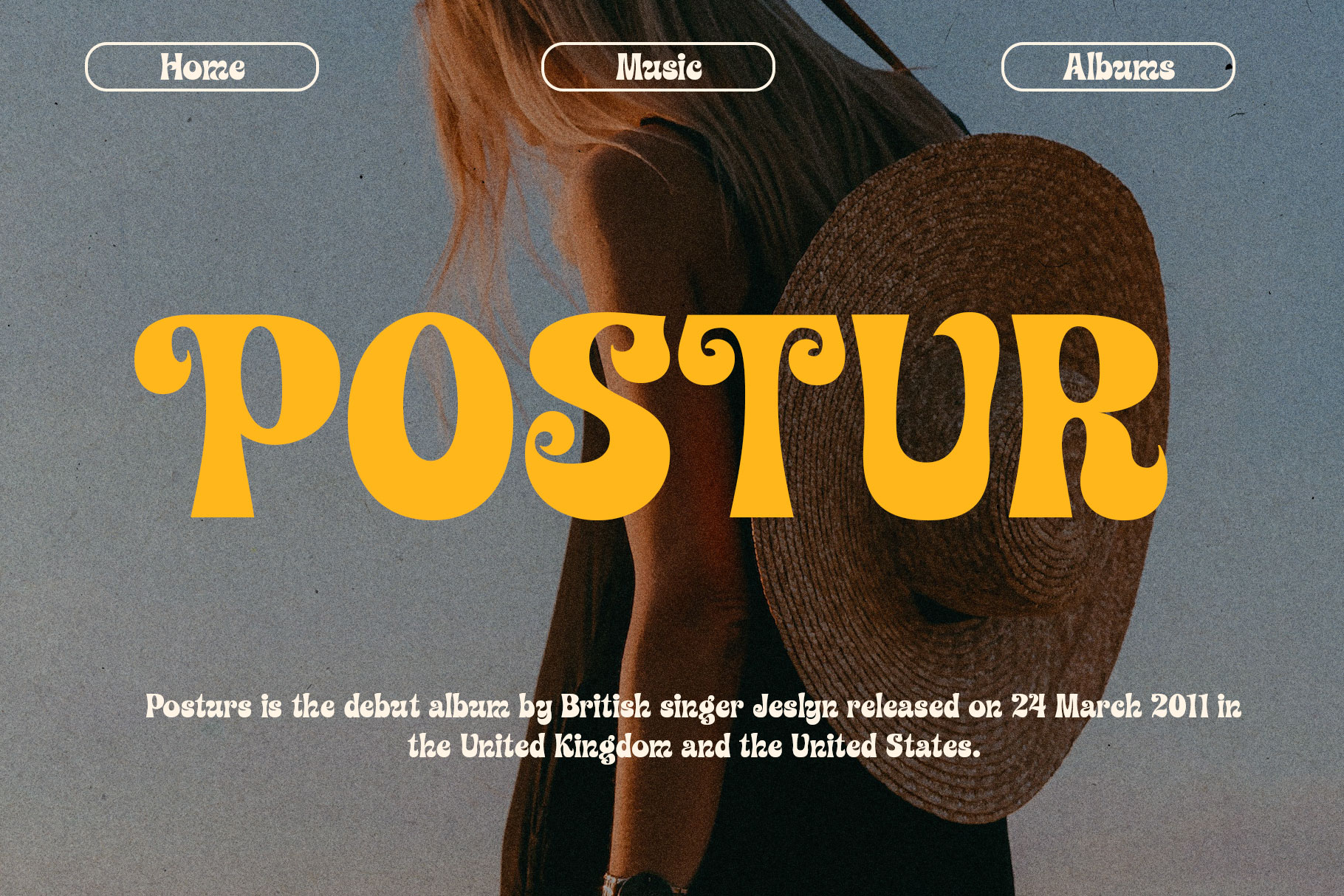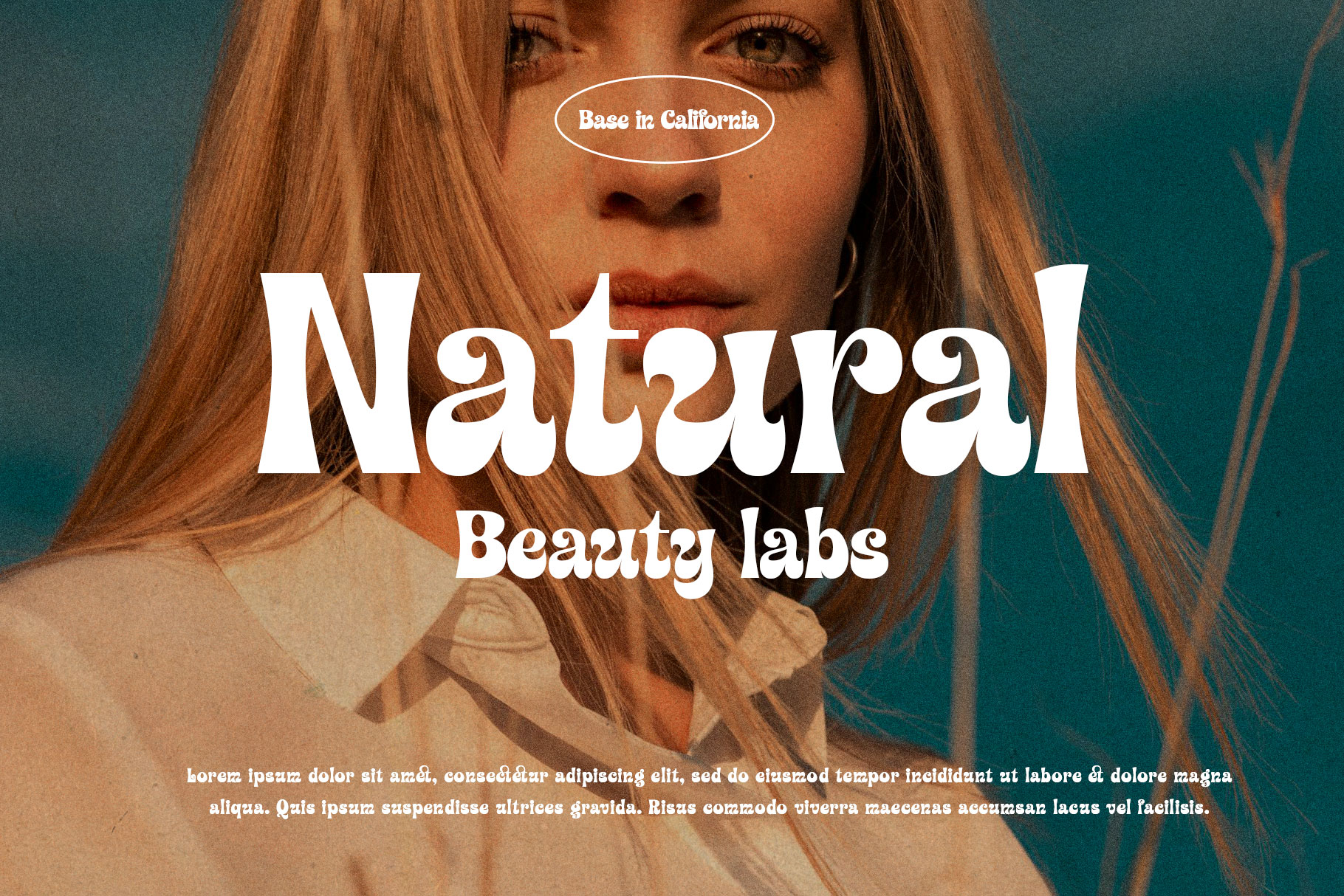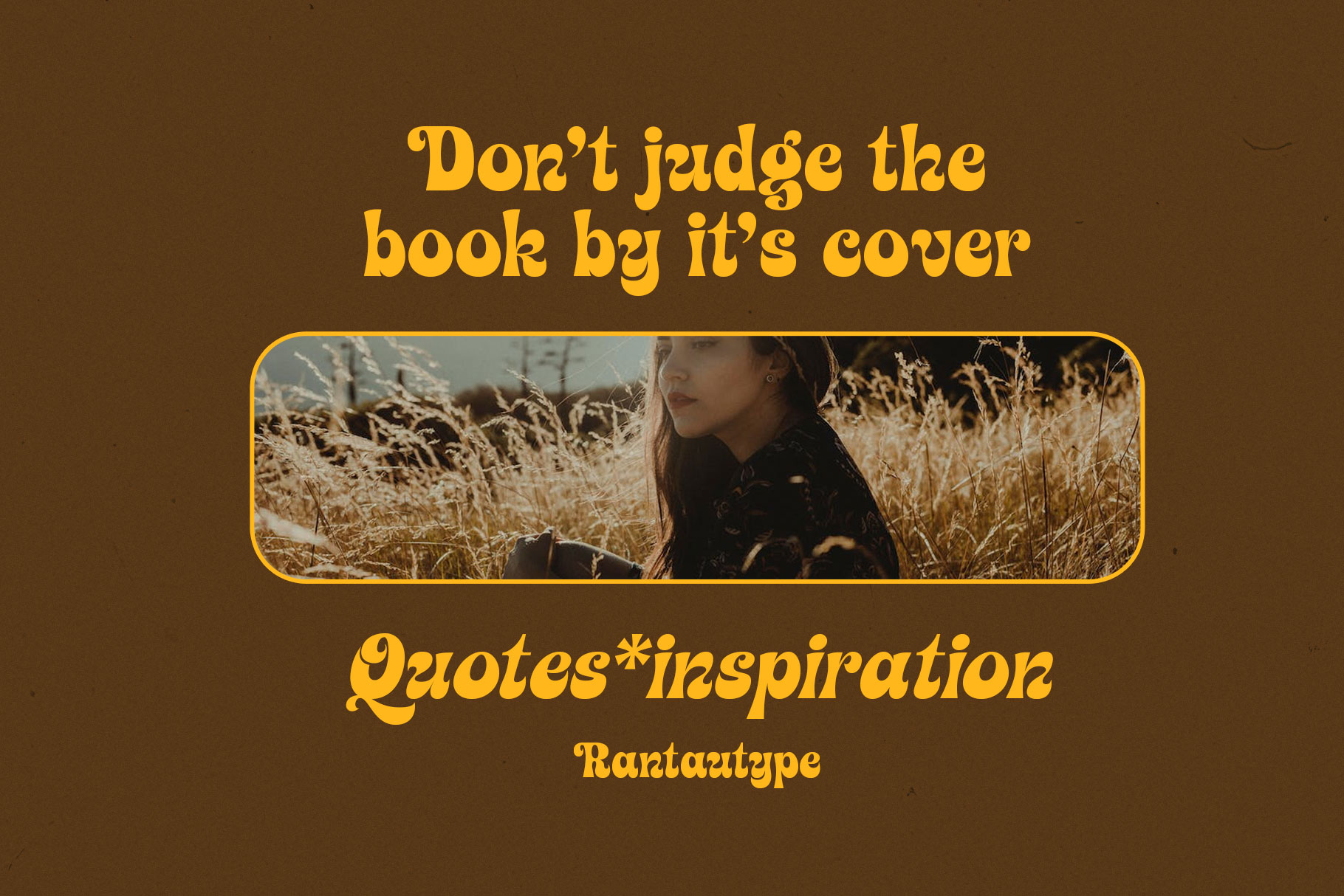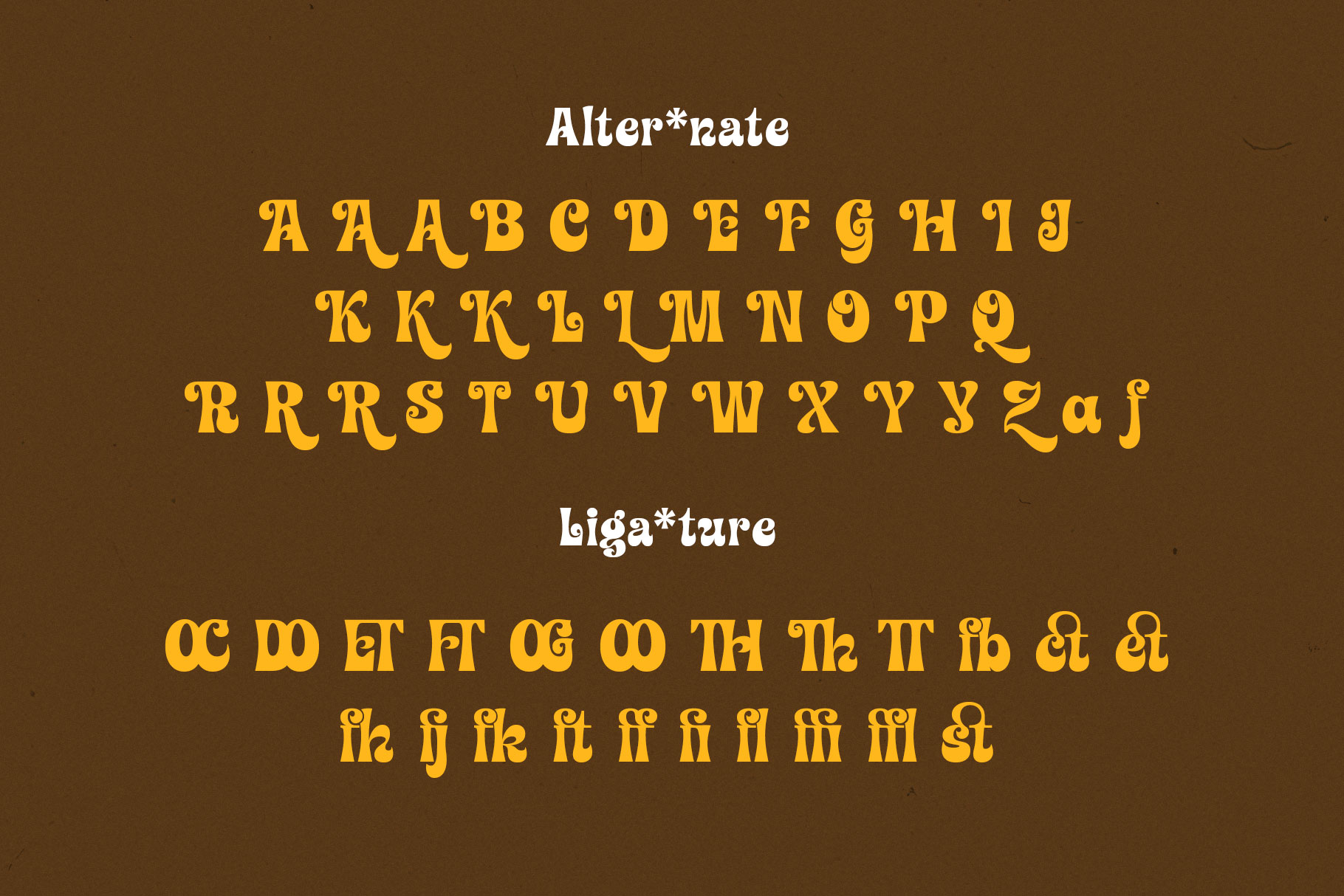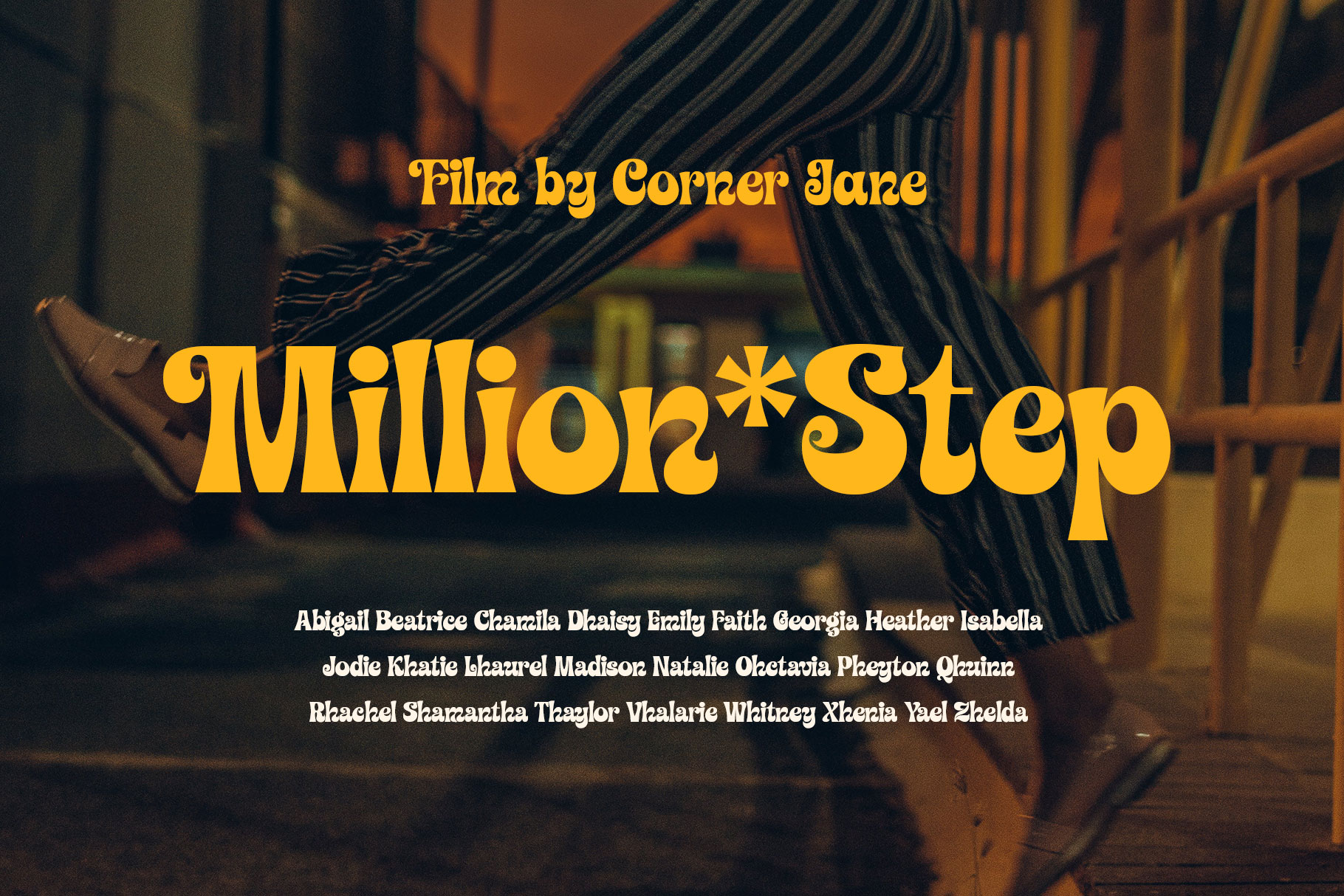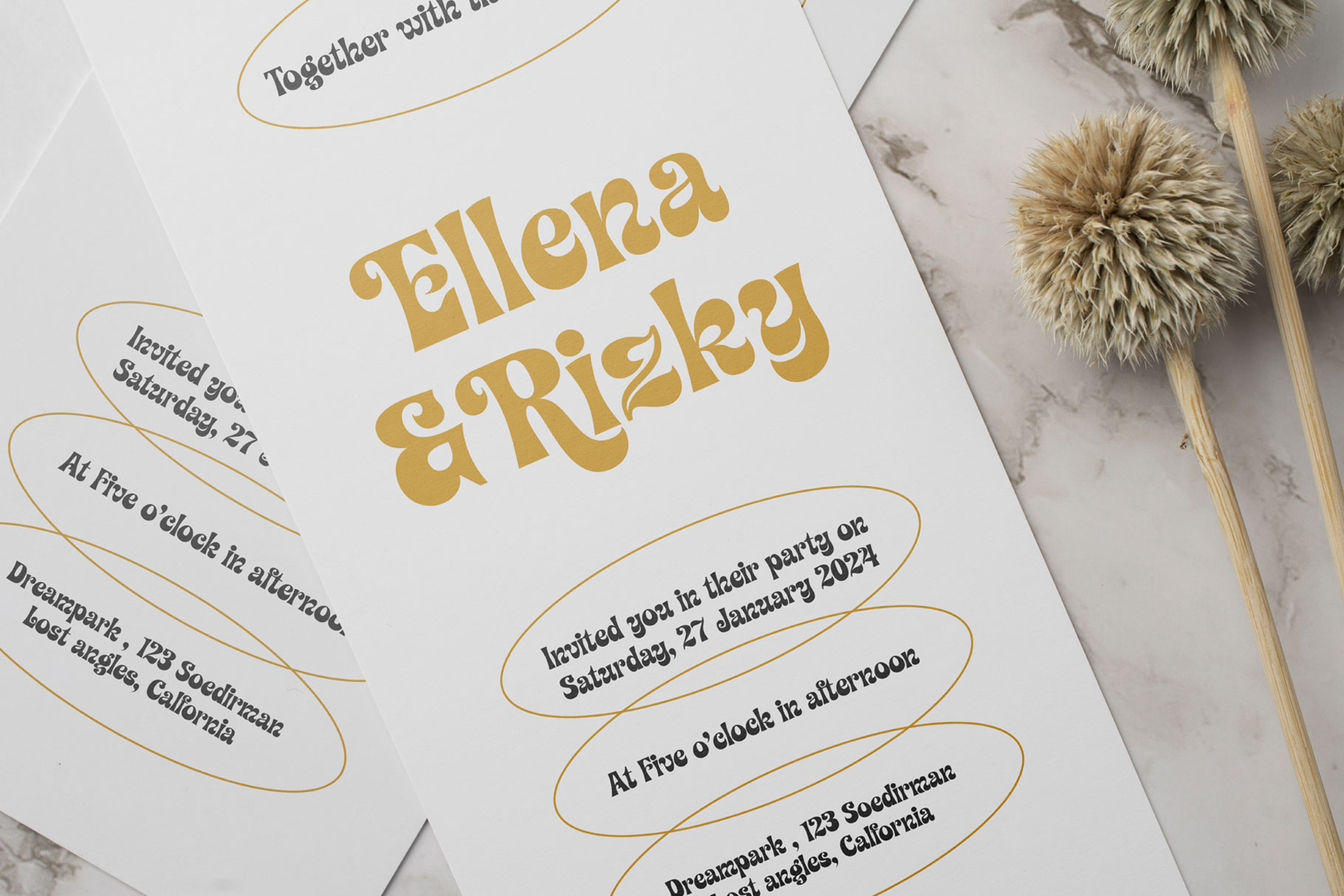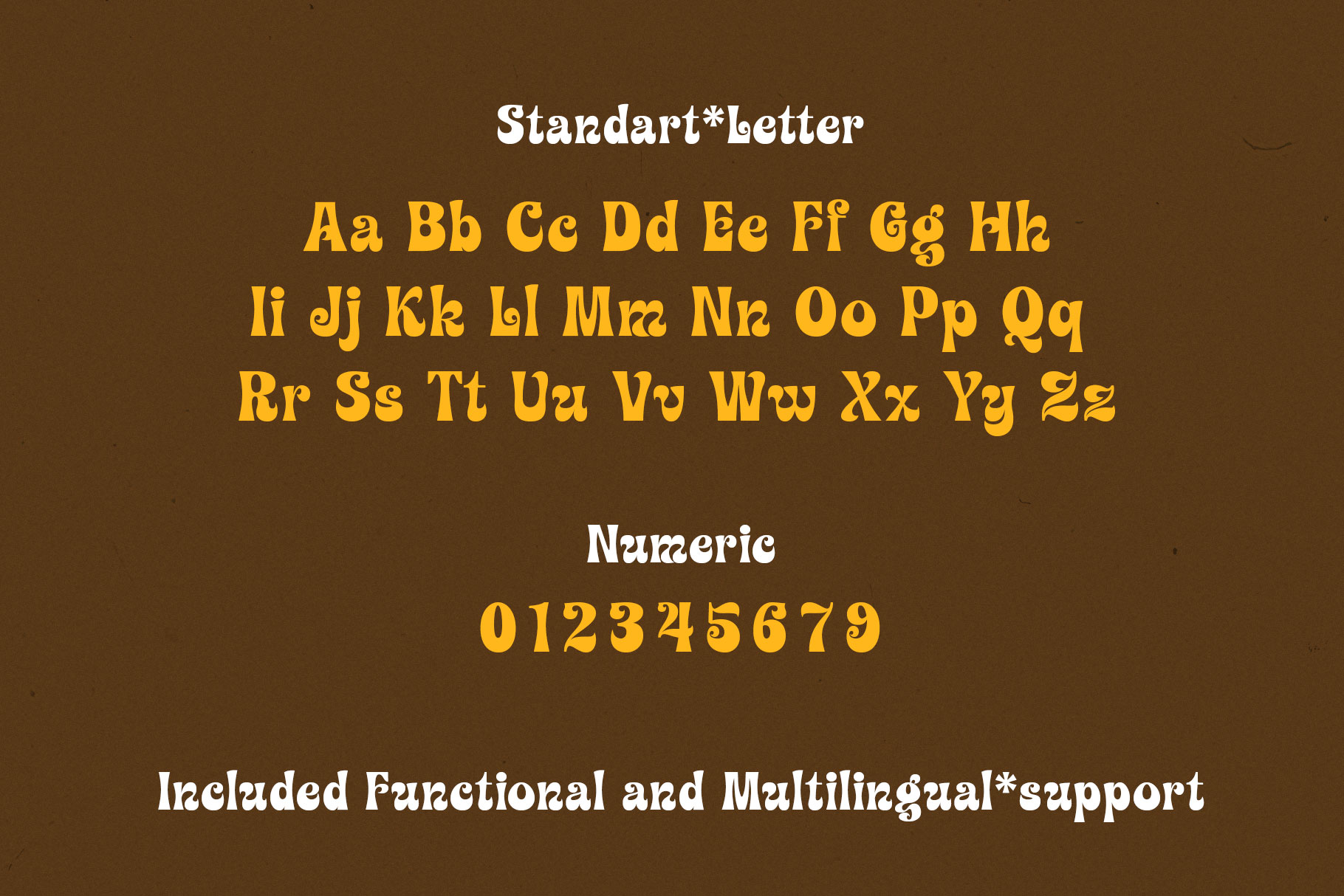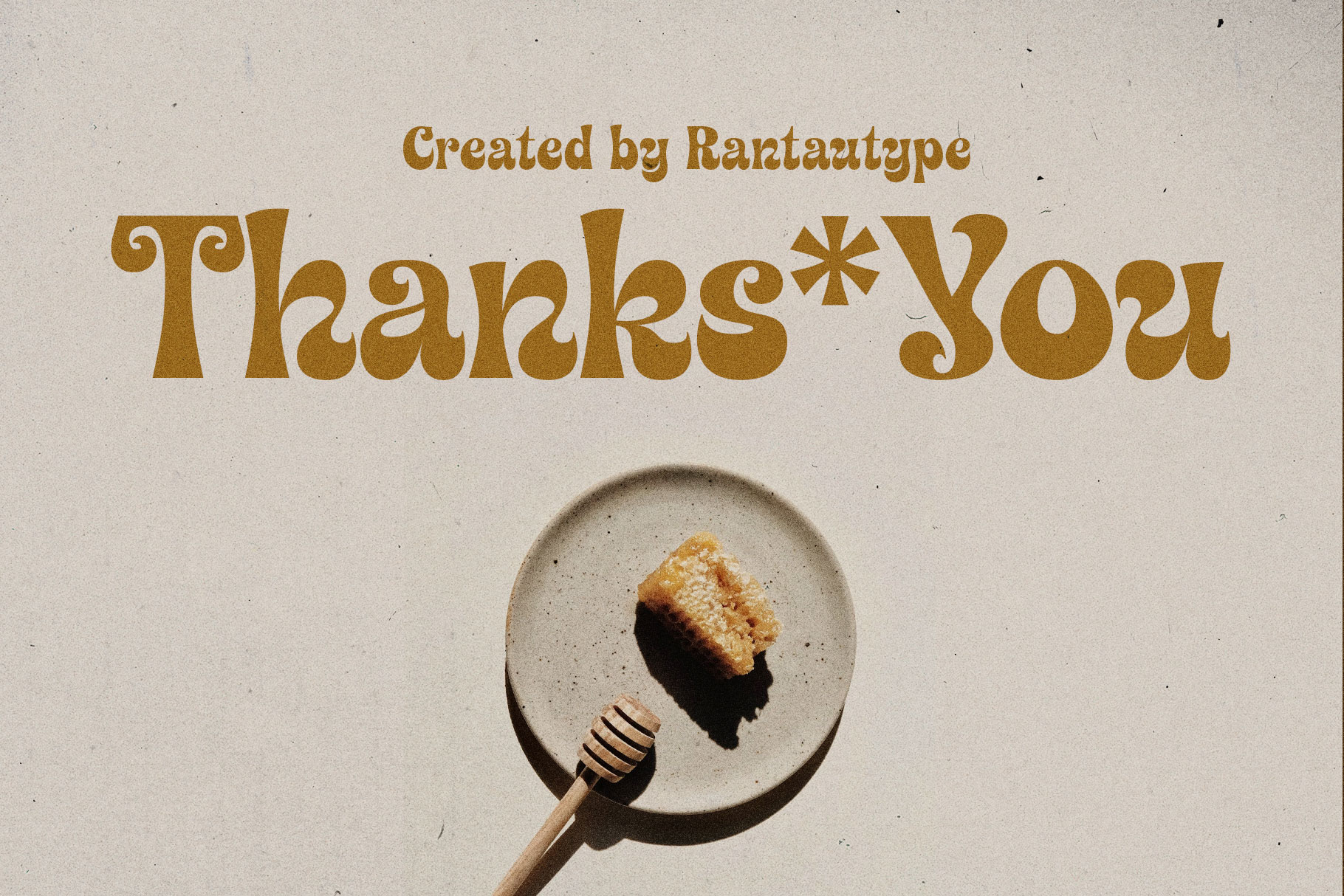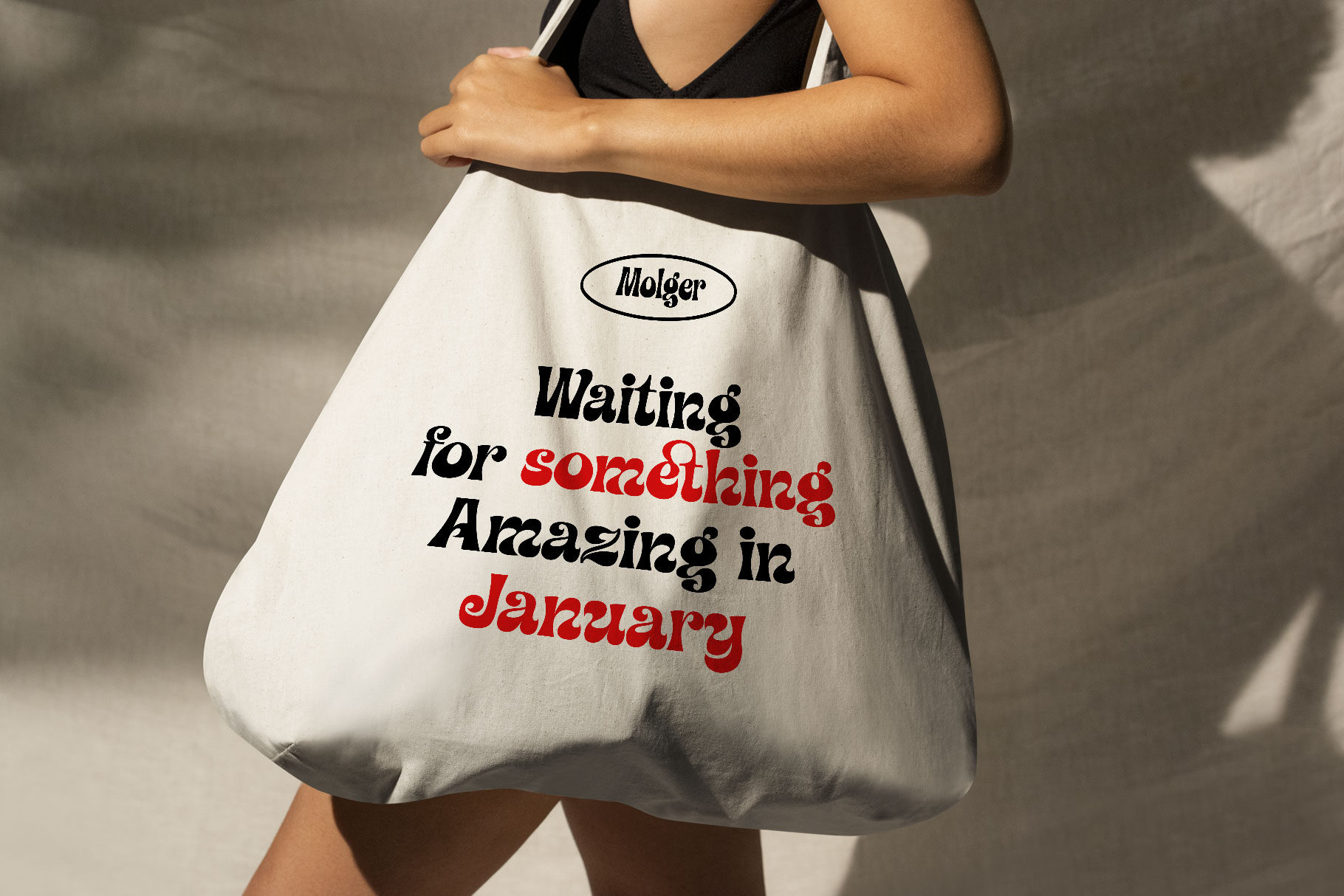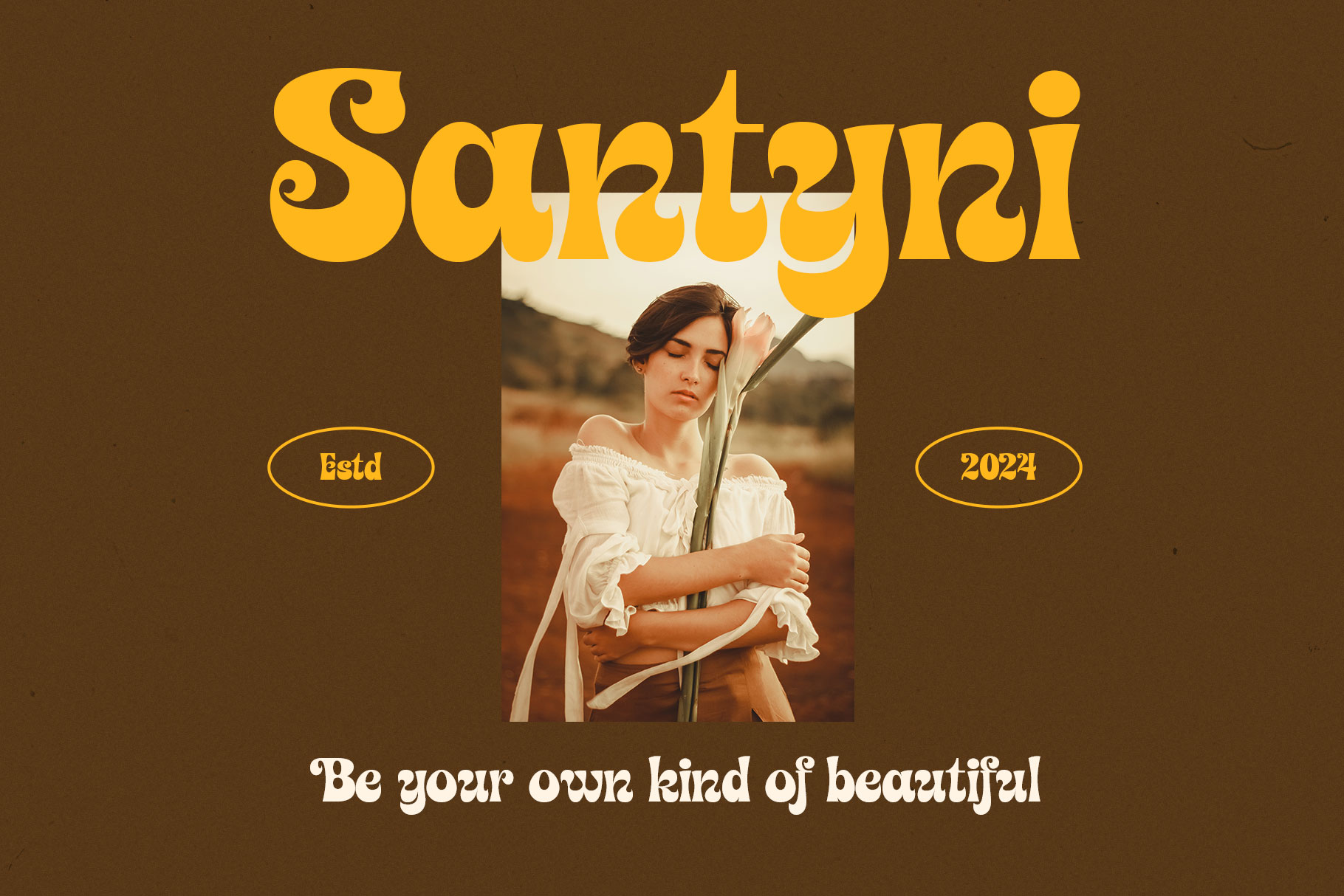
Molger Retro Display Font
Molger is a retro font that bold and curve make it look Unique, fun, modern and versatile serif Font. Come with more alternate and ligature you can mix and max to create a more stunning display.
Molger separate in reguler and italic, is a beautiful choice for any creative endeavor, creating fun, modern, chic, lifestyle design such as logos, title, cover, branding, display and magazine, and more. Now you have more choice when using Molger to make you design stand up!!